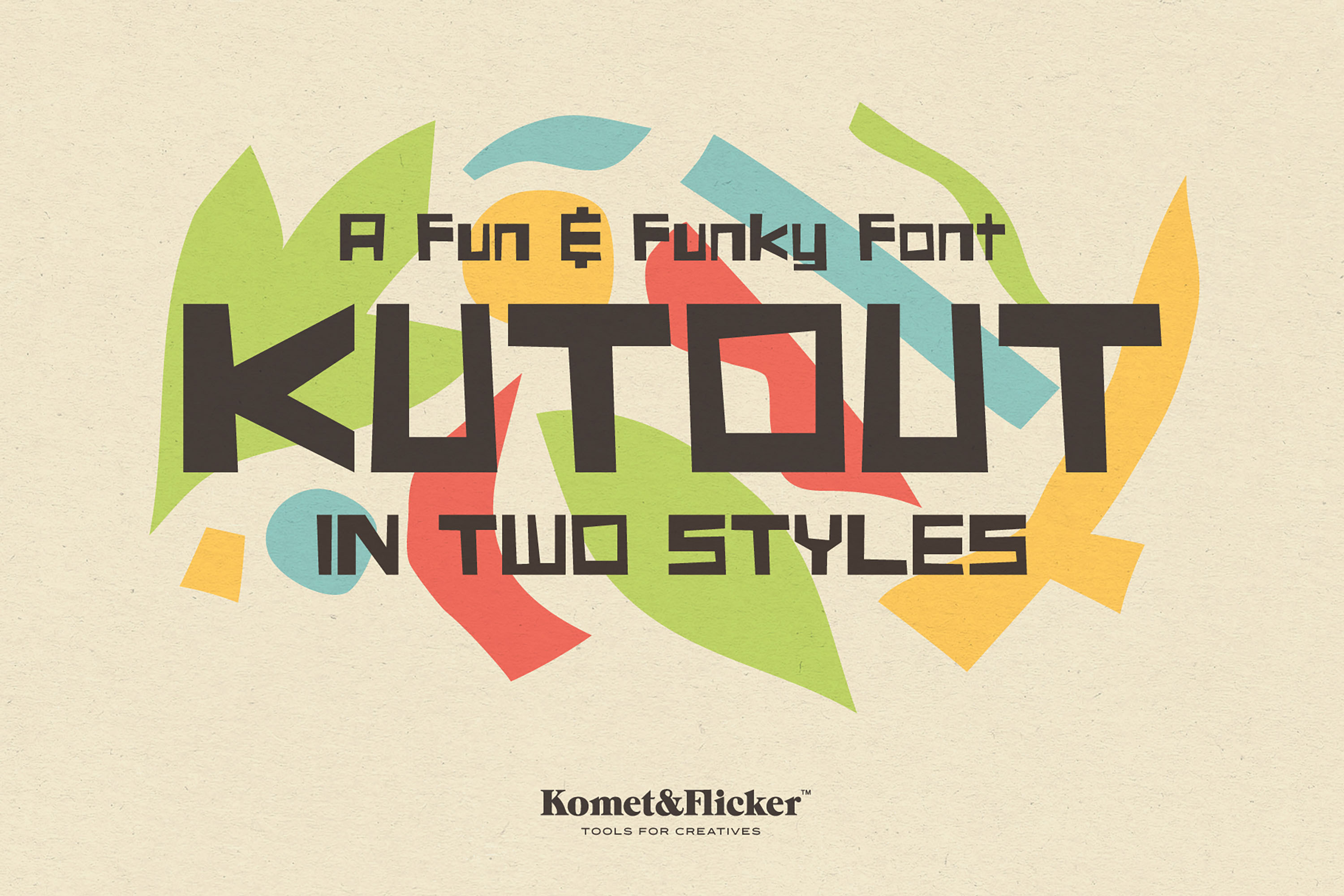
KutOut - A Fun & Funky Font
Inspired by loose cut paper shapes, KutOut is a font that says energetic and creative fun. This font works great for branding, identities, posters, banners, t-shirts, party invites – anywhere you want to communicate a hip and casual design style.
This font comes in two styles: a hard version with sharp corners and a soft version with rounded edges.